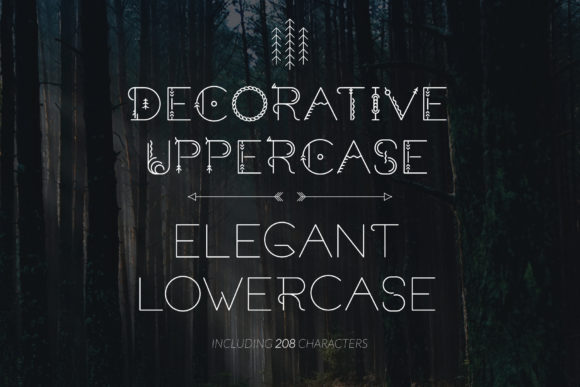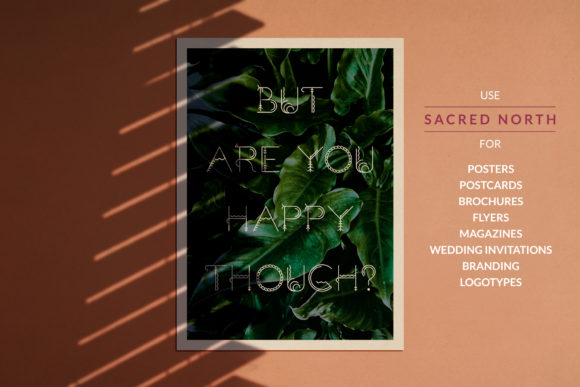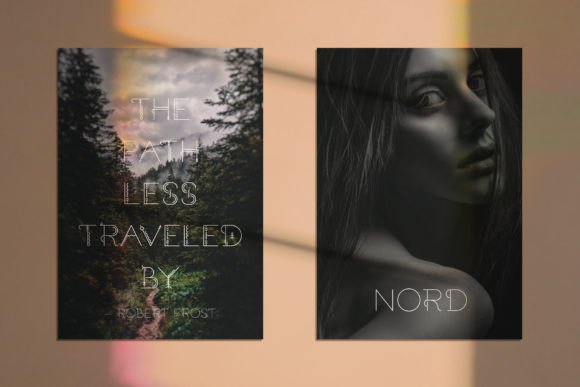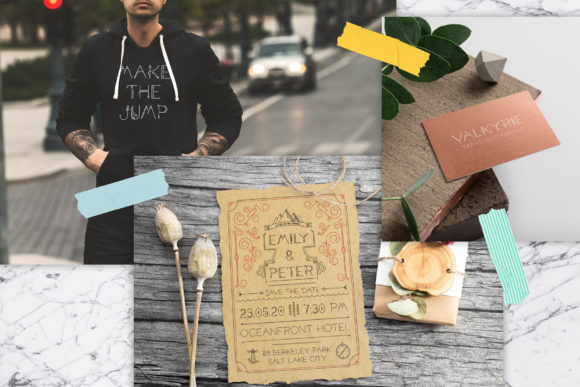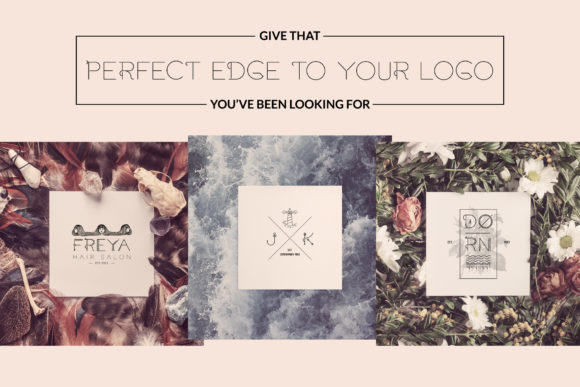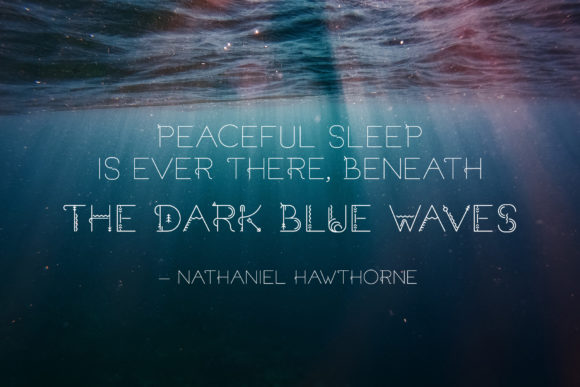
Introduction to Sacred North Font
As I sat in a cozy café in Copenhagen, sipping on a warm cup of coffee, I stumbled upon a peculiar combination of ancient runes and modern Scandinavian design. The intricate details and geometric patterns sparked a creative moment, and I knew I had to bring this unique aesthetic to life. The Sacred North Font was born, a beautiful, high-quality display font that combines the elegance of Scandinavian culture with the mystique of the Viking Age.
For designers, the Sacred North Font is a valuable resource that offers a versatile design option. With its uppercase letters featuring a decorative, geometric appearance and lowercase letters showcasing a more elegant and simple design, this font is perfect for creative projects that require a touch of sophistication. The transparent background makes it easy to use as a design resource, and with a free download available, designers can access this high-quality font without any restrictions.
Key Features of Sacred North Font
- High-quality design for creative projects, ideal for use in graphic design, digital art, and web design.
- Designed with a unique, modern aesthetic, featuring clean lines and subtle textures.
- Includes multiple weights and styles, providing flexibility for a wide range of design applications.
Honest Review: Sacred North Font
I recently had the chance to work with the Sacred North Font, and I must say, it’s a high-quality addition to any design project. ✨ The font is perfect for a creative project that requires a touch of elegance and sophistication. Its clean and minimalist design makes it easy to read and versatile enough to use in a variety of contexts.
- Easy to read and versatile
- Limitations:
- May not be suitable for bold or dramatic designs
- Could be improved with additional font weights
Overall, I’m impressed with the Sacred North Font. It’s a great addition to any design resource and can be a valuable asset for designers looking to add some sophistication to their projects. With a few limitations in mind, I’d highly recommend giving it a try.
Tips for Getting the Most Out of Sacred North Font
To get the most out of Sacred North Font, experiment with different font sizes, colors, and combinations to create unique and eye-catching designs. You can also use it in conjunction with other design elements, such as graphics and images, to create a cohesive and visually appealing design.
The Sacred North Font is perfect for a wide range of design applications, including logos, social media graphics, presentations, reports, and documents. Its high-quality design and transparent background make it a versatile and valuable resource for designers and creatives.